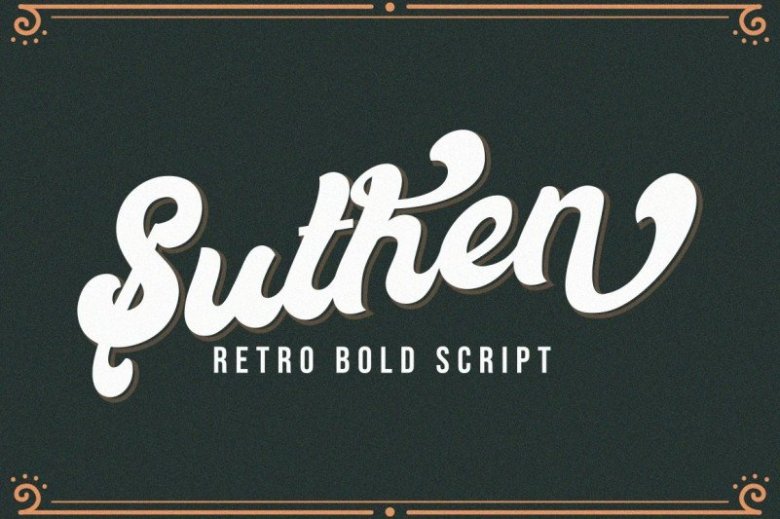
Suthen Font
Introducing, Suthen Bold Script Font, a retro bold Script. Made from font designer named Vultype Co. This typeface has nostalgic feel because of its style, so the font is really match for your project with retro / vintage theme. The swashes make this typeface unique even more so you can use it to create beautiful vintage lettering in a sec.